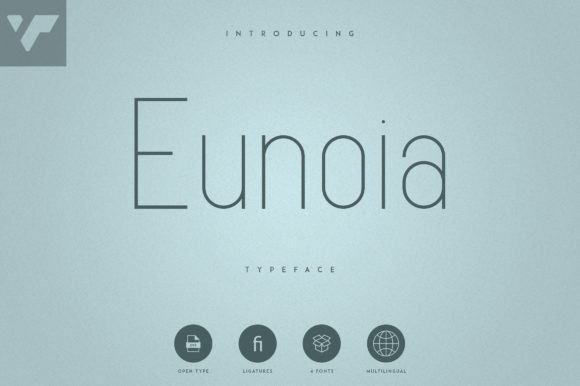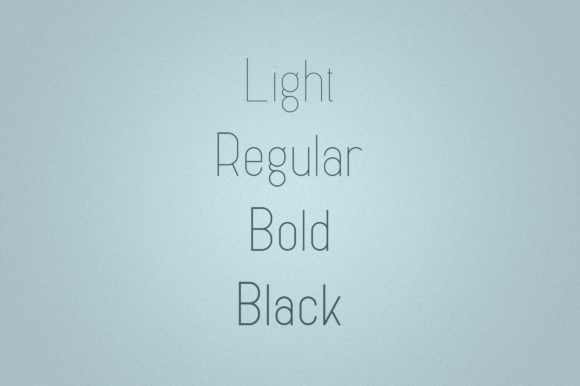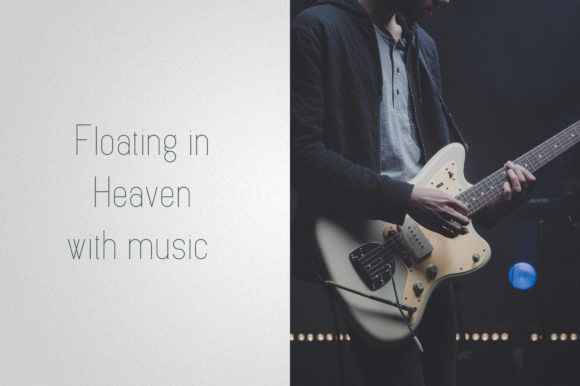
Eunoia Font
Eunoia is a thin and clean sans serif font. Suitable to a wide variety of designs due to its neat and simple style, this font has the potential to become your favorite go-to font, no matter the occasion!